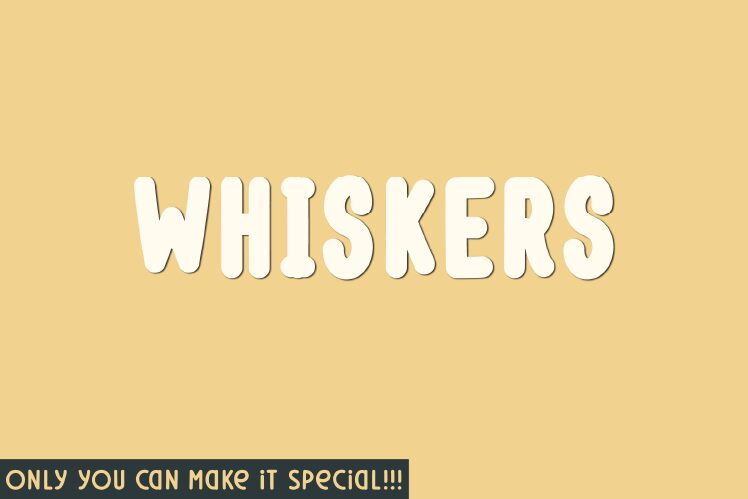
Whiskers font, by Hanna Bie of Hanna Bie Creative Studio, is a bold and condensed handwritten typeface that exudes charm and playfulness. Its striking appearance makes it perfect for headlines, branding projects, or any design needing a personal touch. The bold lines and condensed structure combine to create a powerful visual impact while maintaining an inviting feel. Perfect for designers looking for a fresh aesthetic, the Whiskers font brings unique character to posters, social media graphics, or logos.